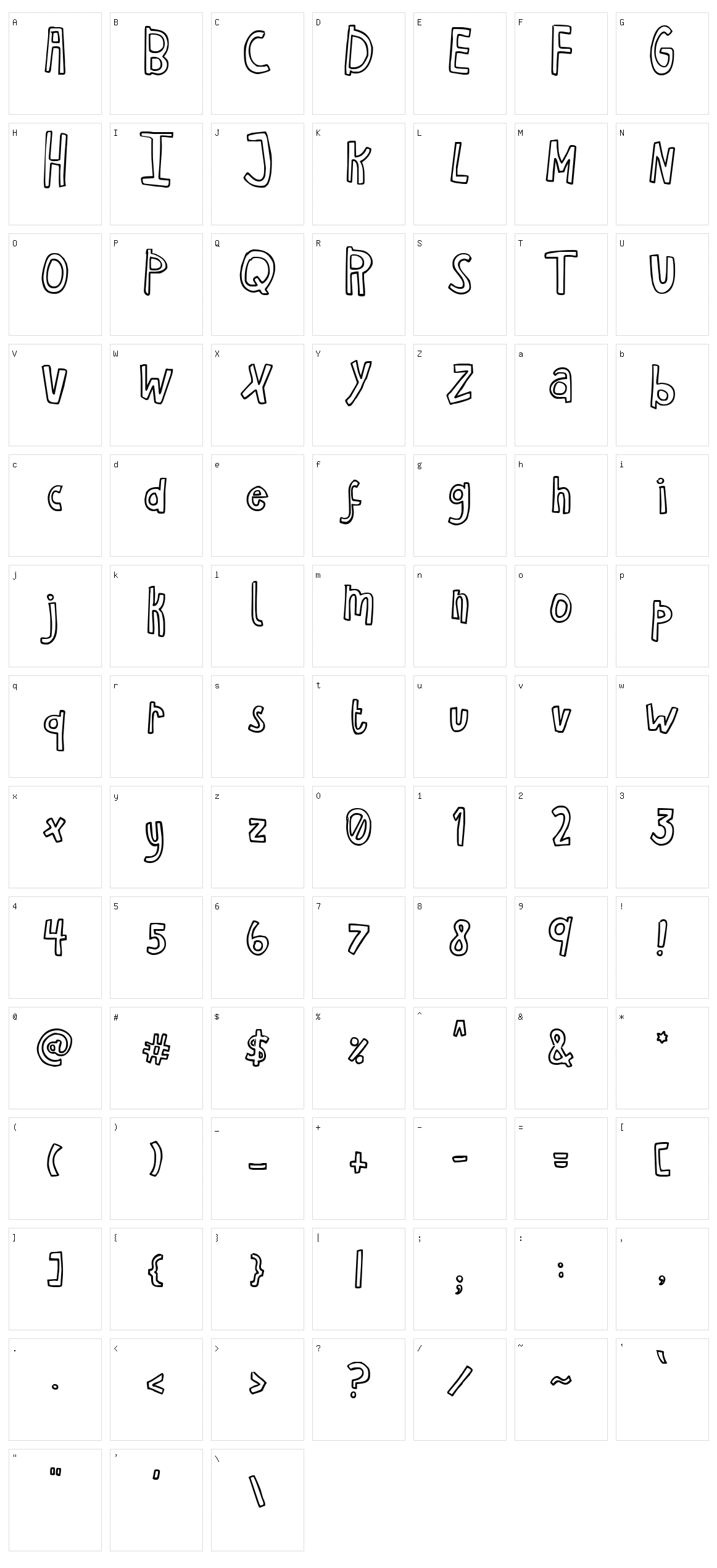
The free font Havent Slept in Two Days is carefully designed by Kimberly Geswein, showcasing a thoughtful balance of creativity and usability and falls under the Cartoon font style. When you download the ZIP file, it contains only 130.4 KB of font files, making it lightweight and quick to download. Please review the license details below to understand permitted usage and distribution rights. If license information is not available, we recommend using this font for personal projects only or contacting the author directly for commercial usage permissions.